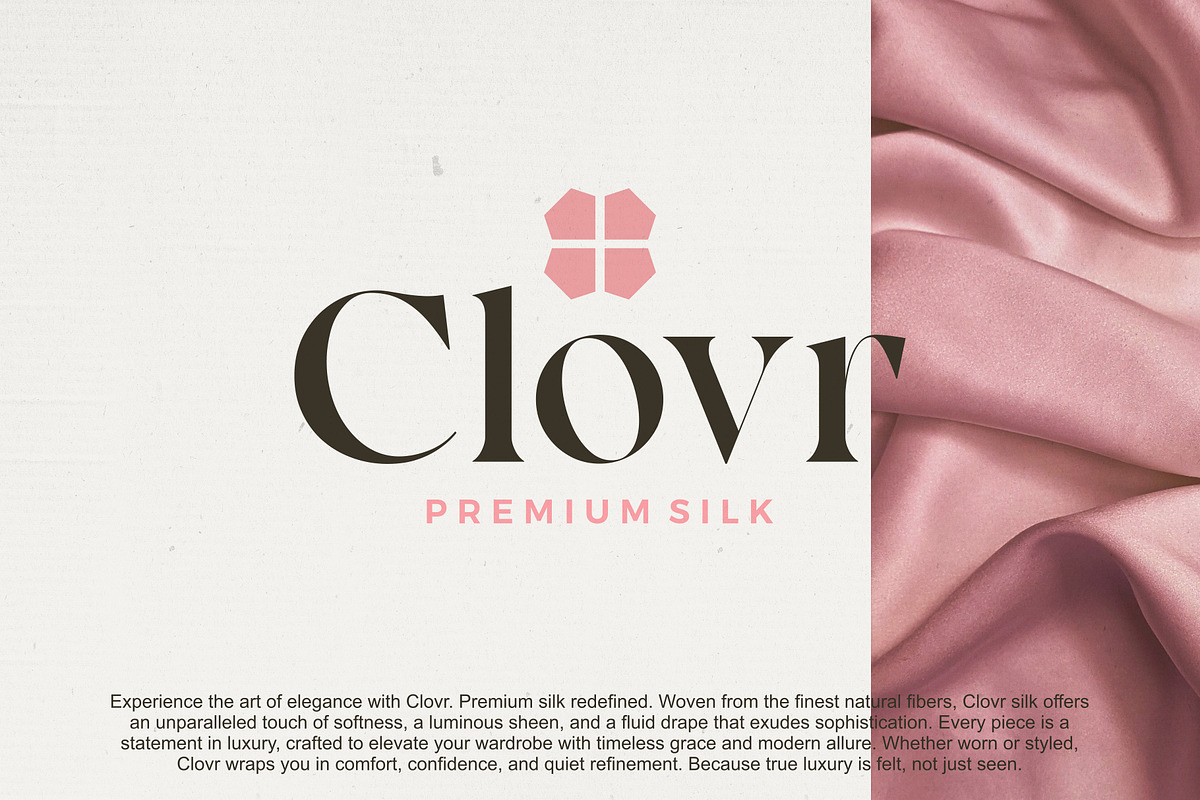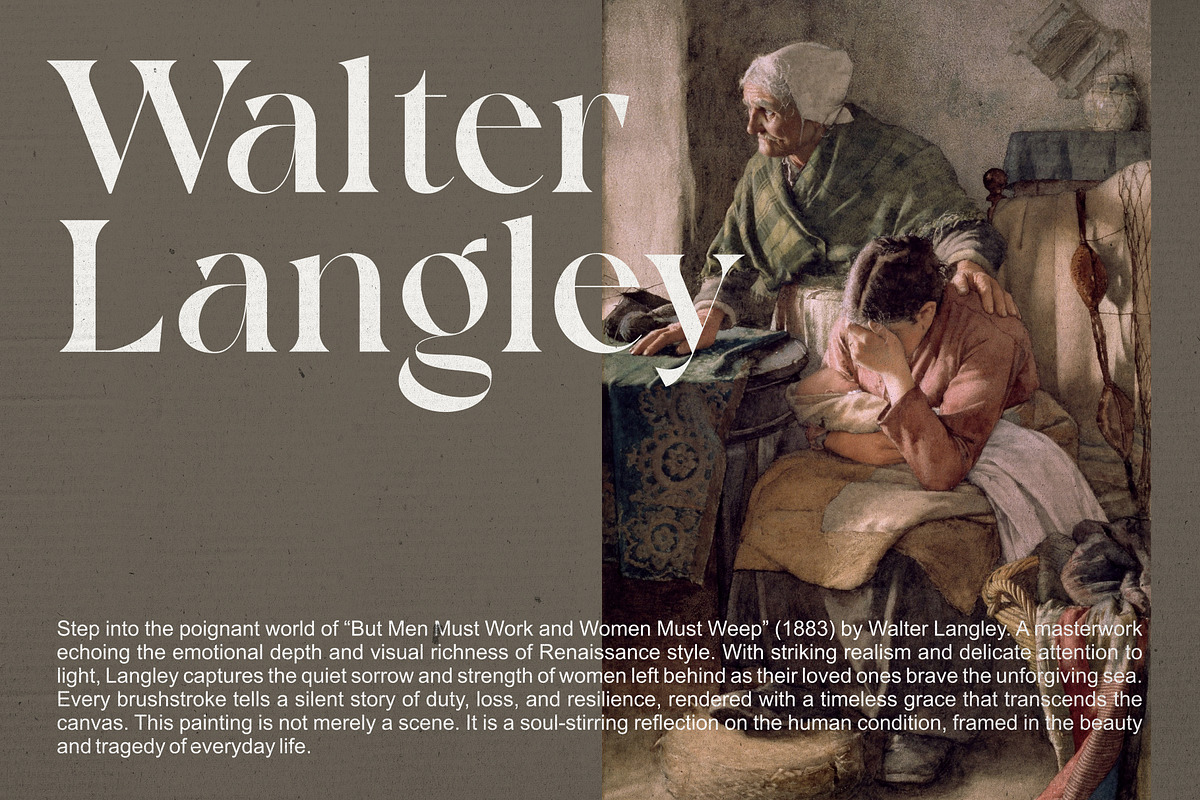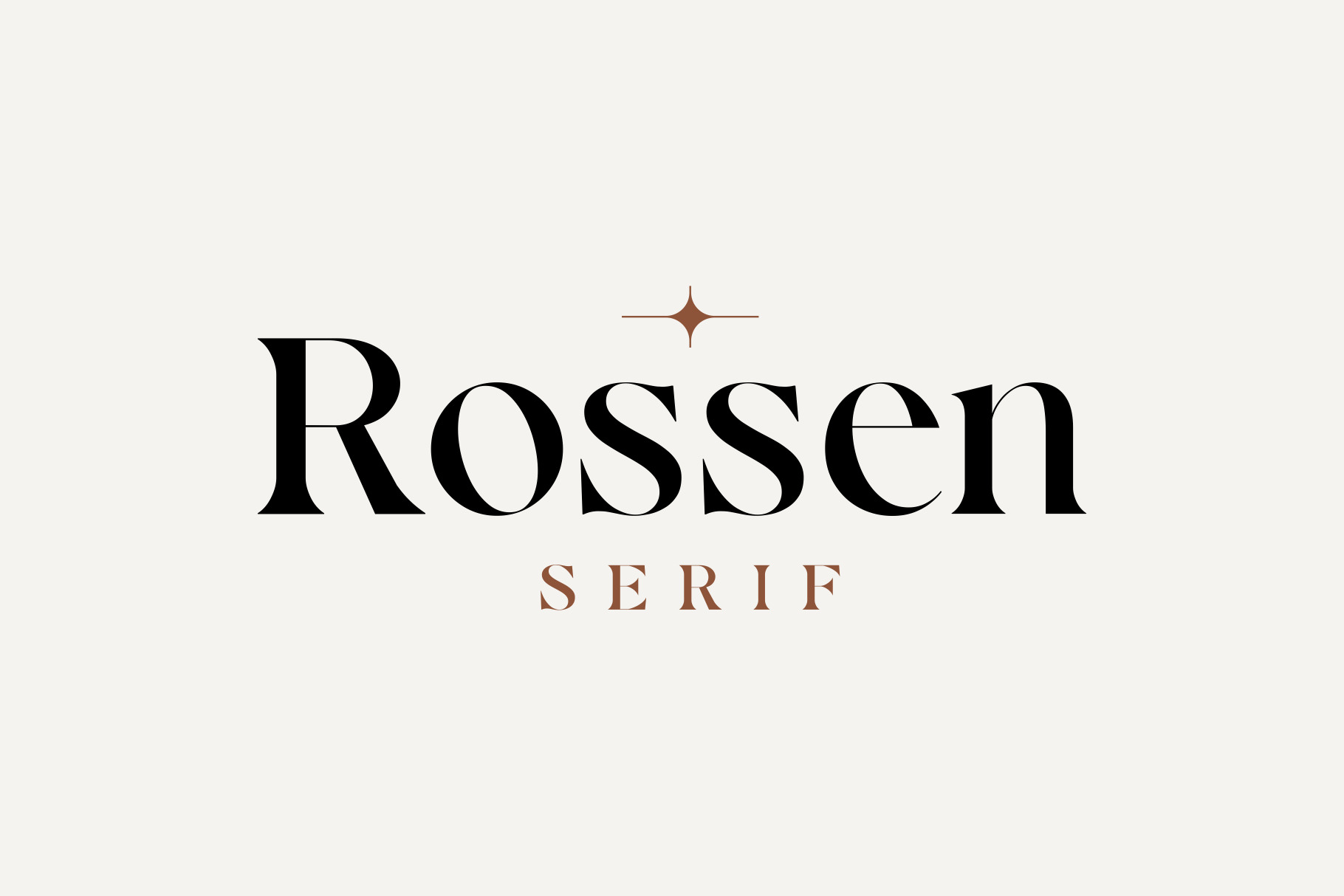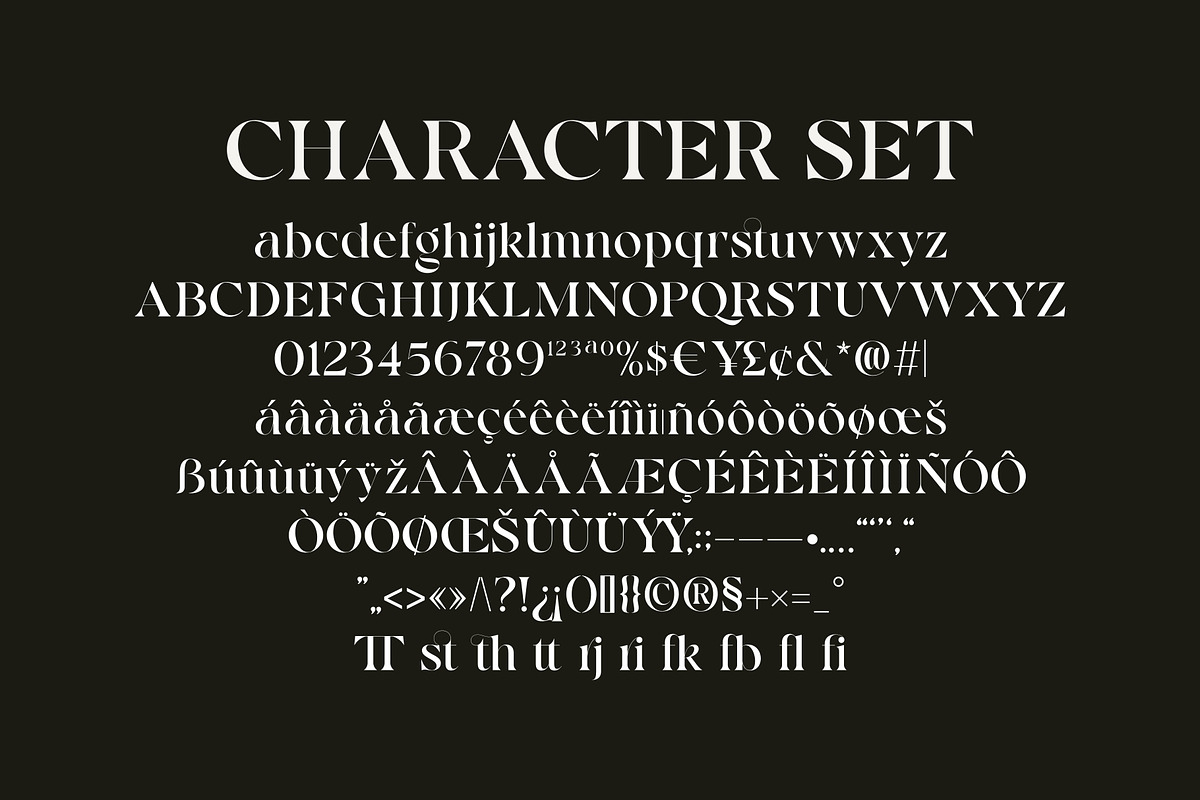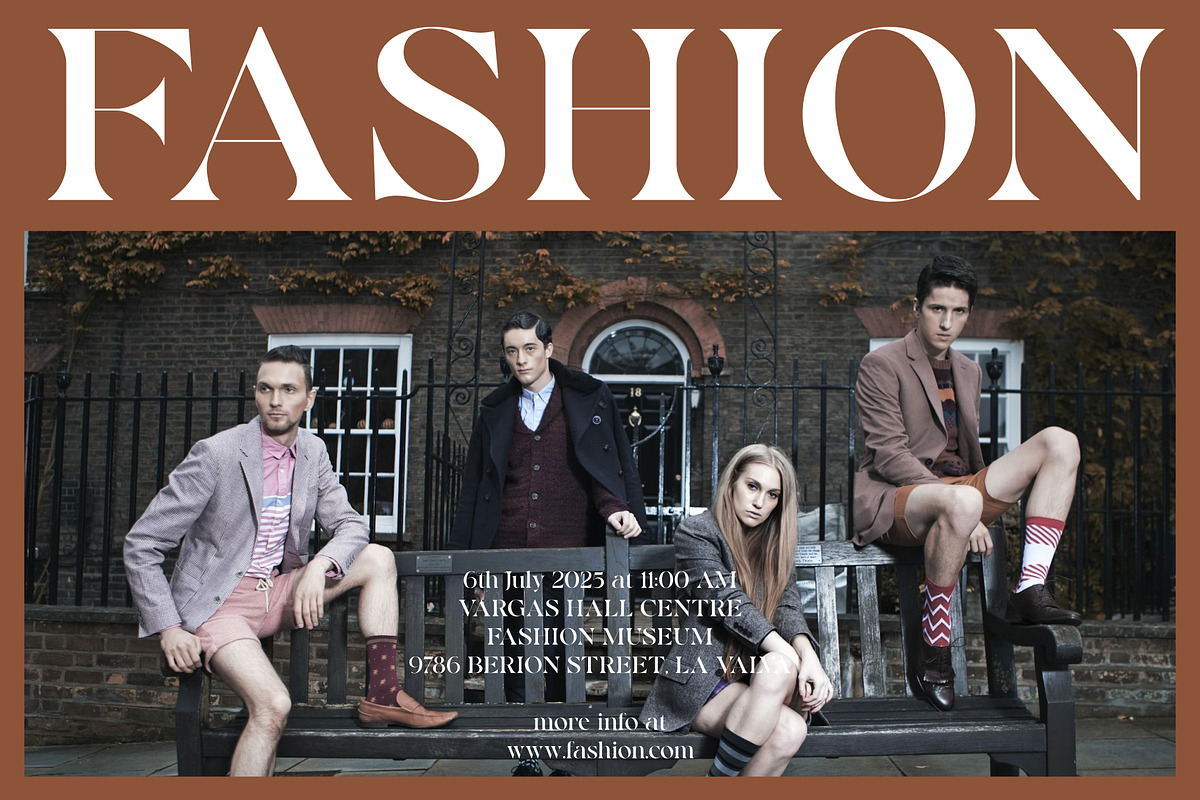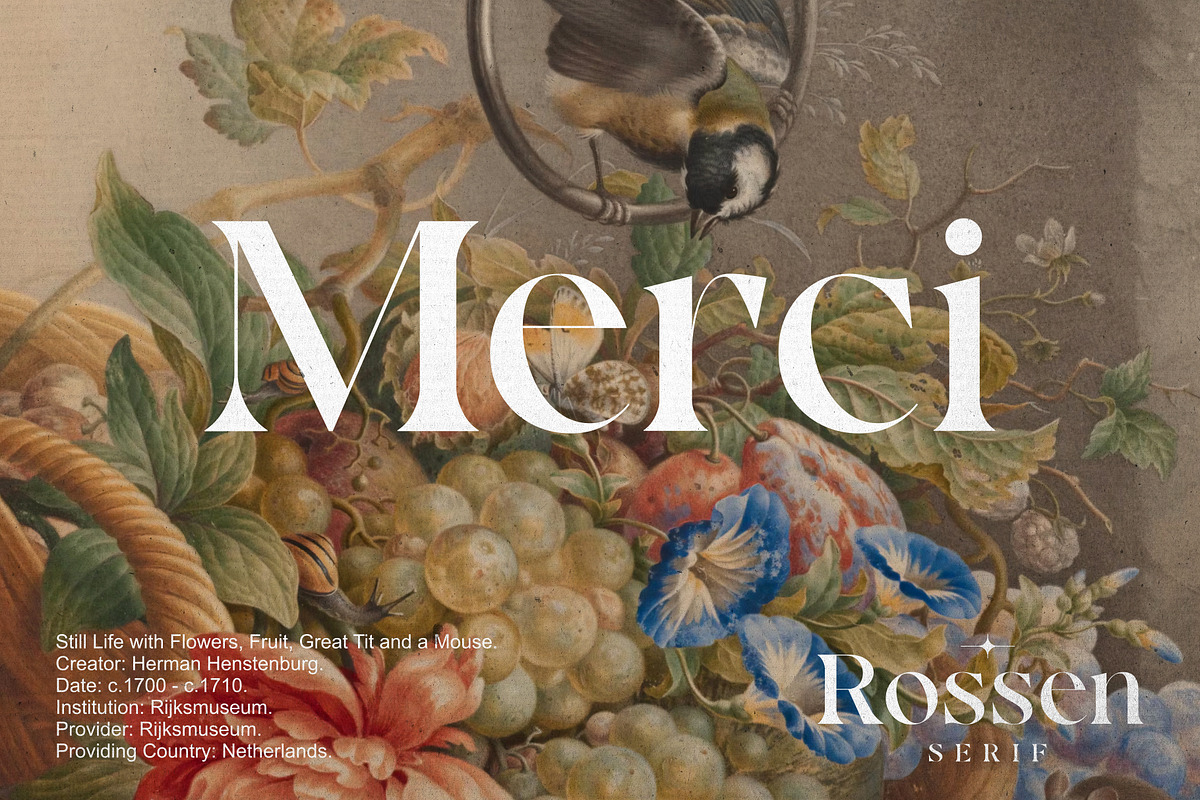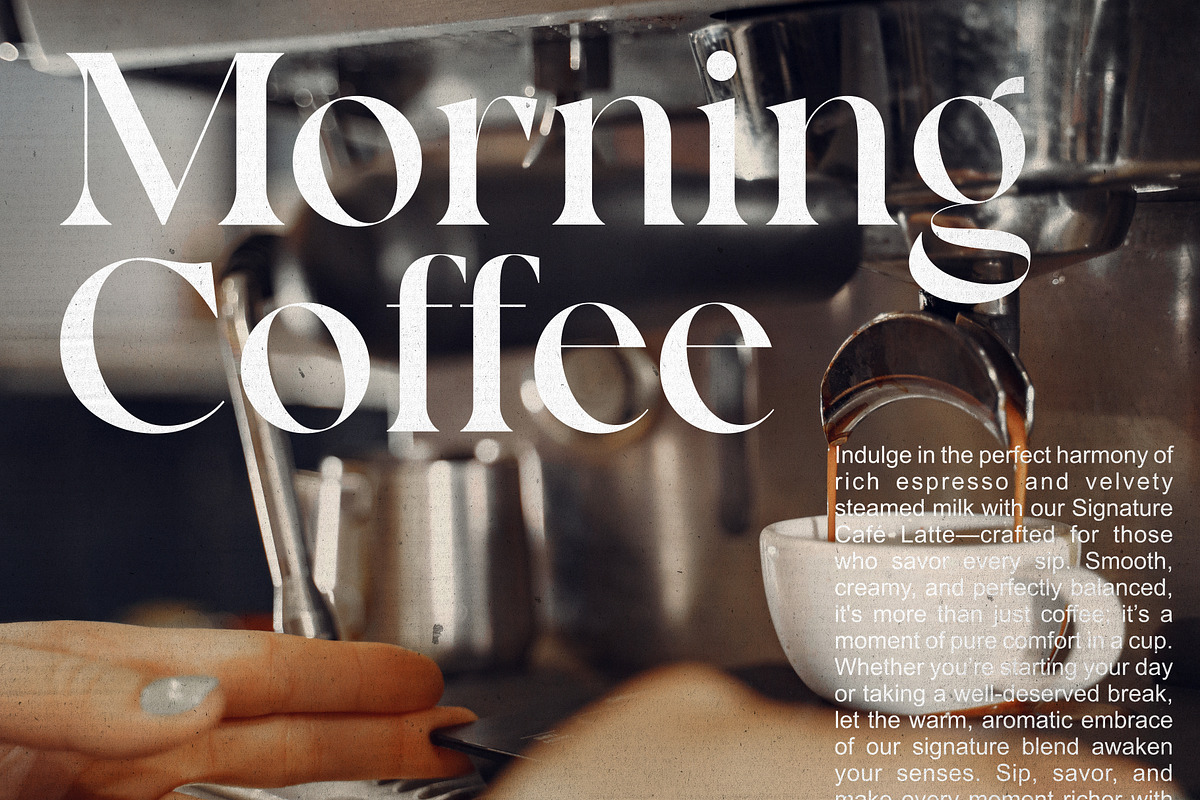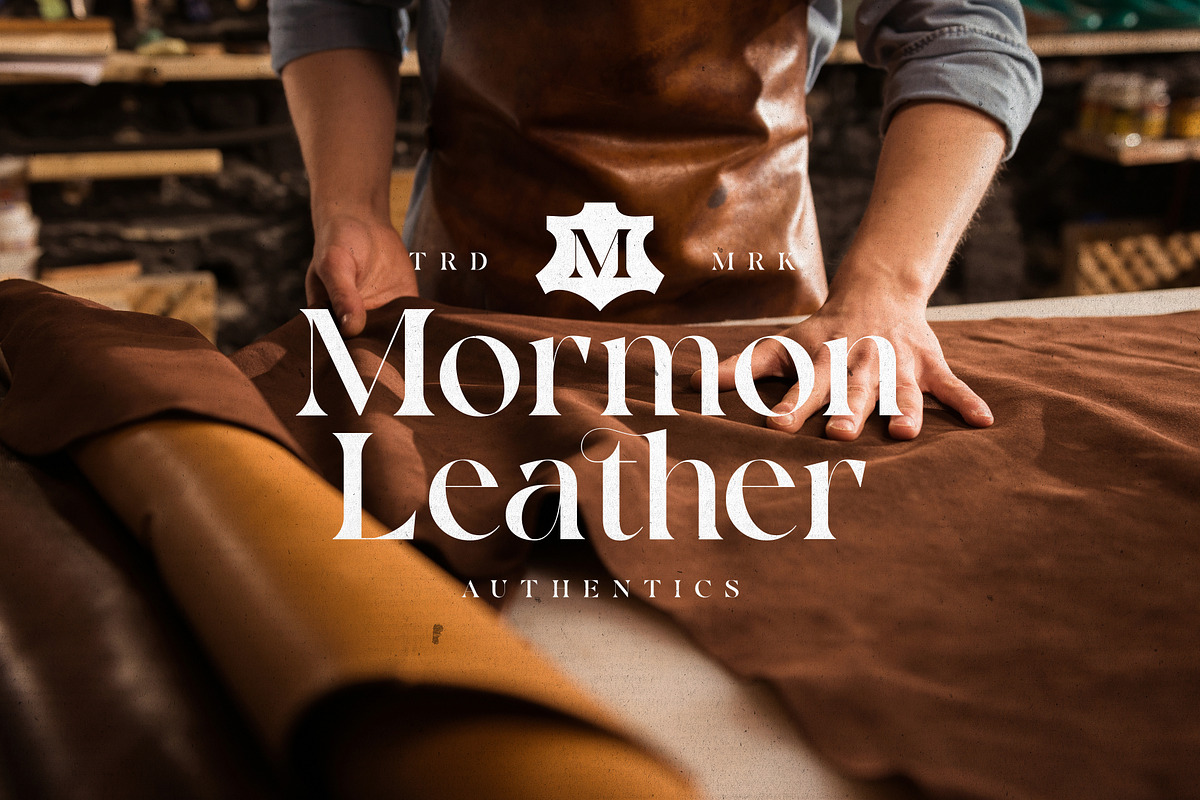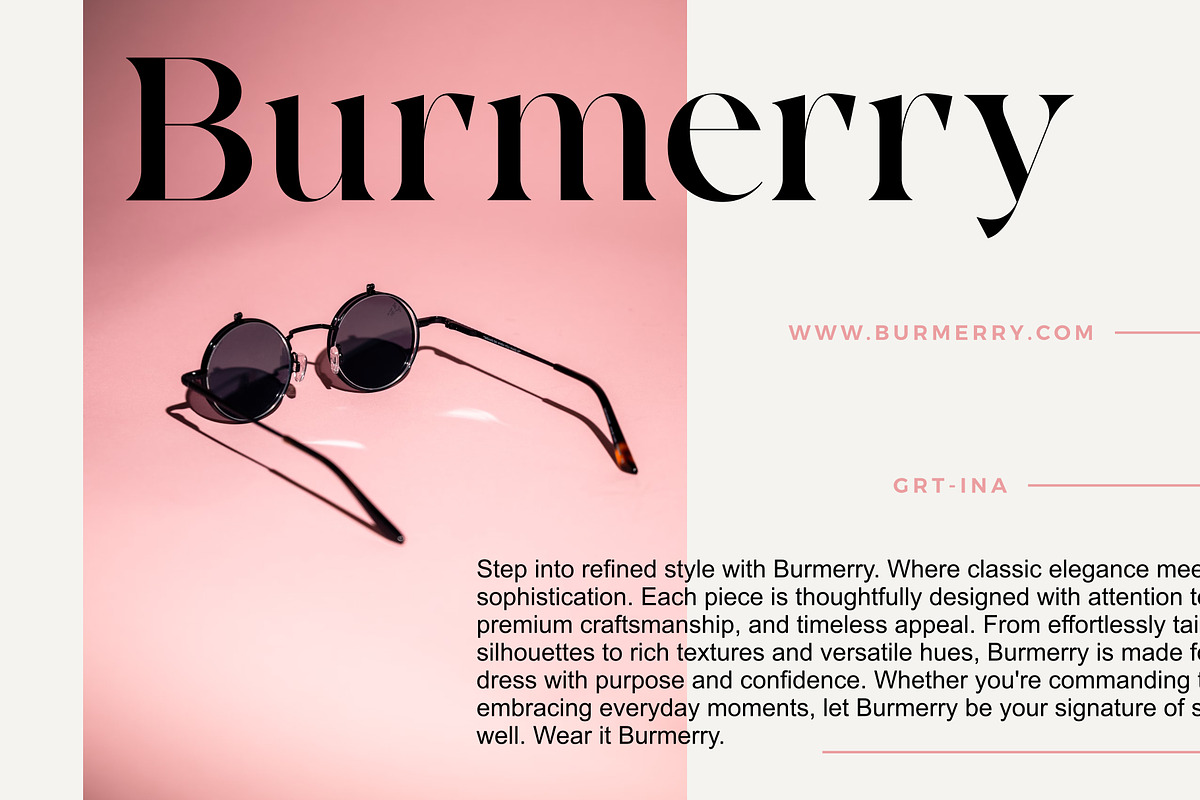
Rossen Serif – Sophisticated Font
Rossen Serif – Sophisticated Serif Typeface
Rossen Serif is a carefully crafted serif typeface that exudes elegance, sophistication, and premium quality. With its clean lines, graceful curves, and classic letterforms, this font was designed to elevate your work with a luxurious touch.
Ideal for a wide range of formal and stylish applications such as logos, headlines, titles, invitations, product labels, magazines, books, packaging, makeup lines, stationery, greeting/wedding cards, and high-end advertising, Rossen Serif brings timeless beauty and refinement to every project.
- Elegant and high-contrast serif design
- Perfect for both editorial and branding needs
- Impeccably crafted for a luxurious, polished look
- Works beautifully across print and digital platforms
Elevate your design aesthetic with Rossen Serif, a timeless typeface made for statements that matter.